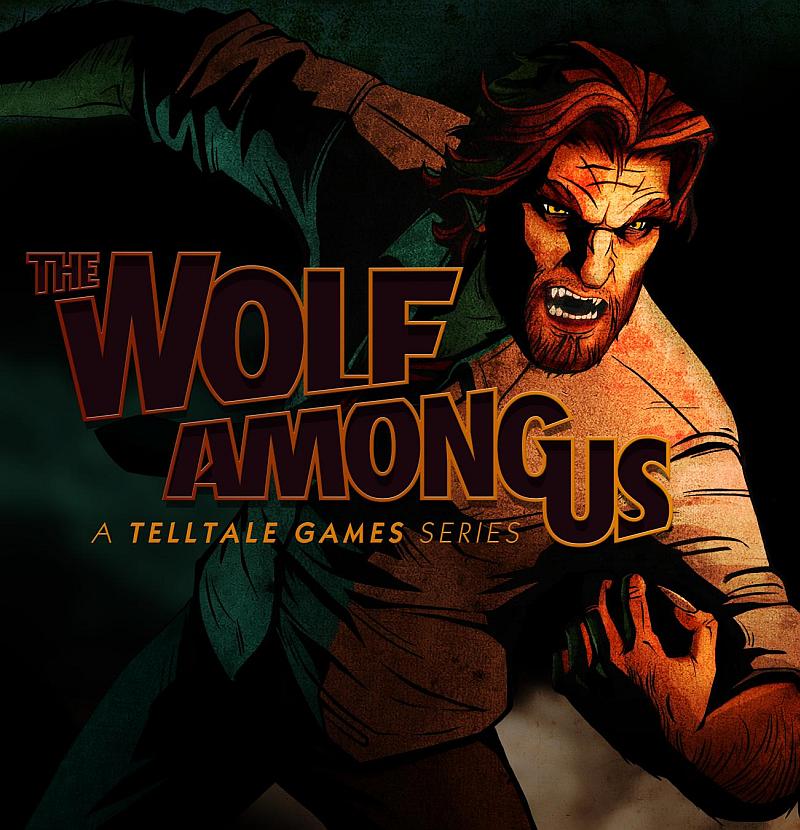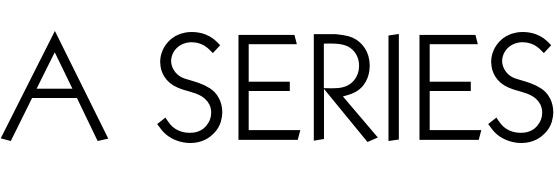
The Wolf Among Us Font
ActionThe Wolf Among Us is a video game developed by Telltale Games and based on Bill Willingham’s Fables comic book series. The game is a narrative-driven, episodic adventure game that follows the story of Bigby Wolf, the sheriff of Fabletown.
Futura Extra Bold appears to have been specifically created for the game logo on the boxart cover. Under the logo, the text "A Telltale Games Series" is most likely manually italicized and set in Kabel Book and Kabel Bold.